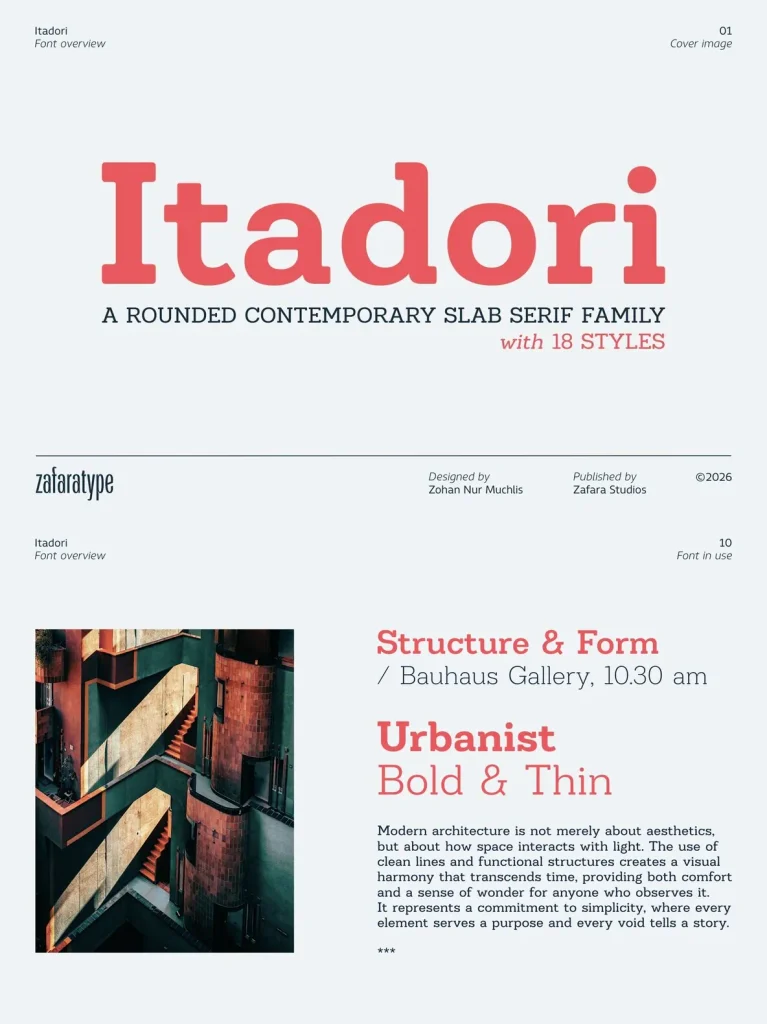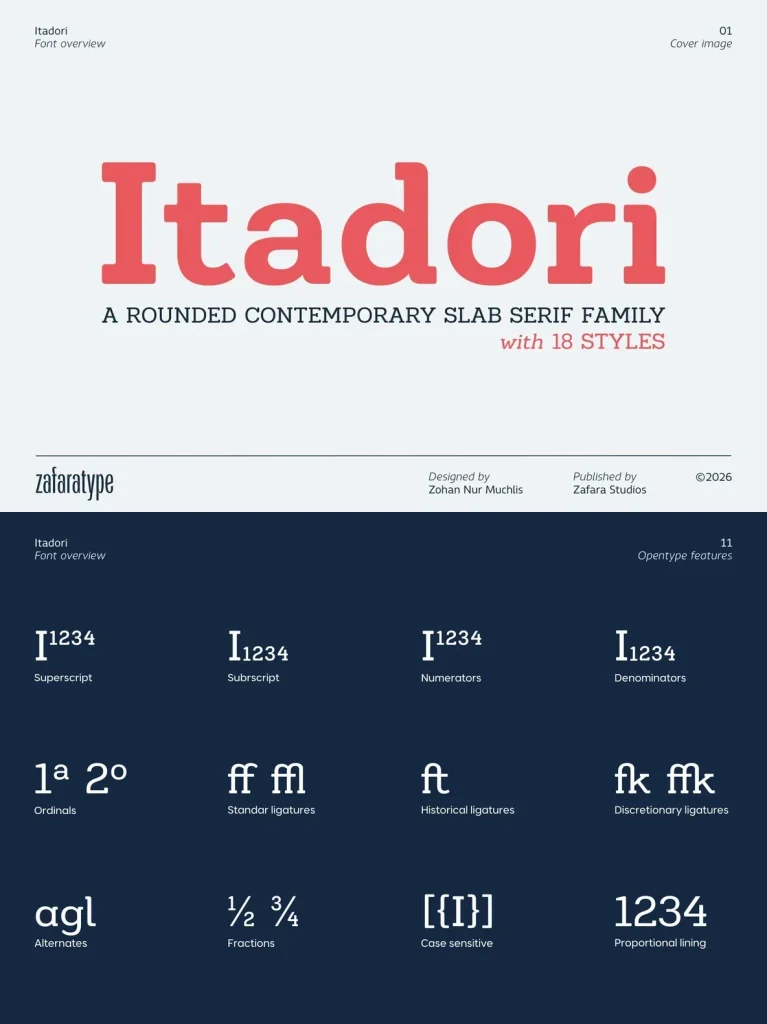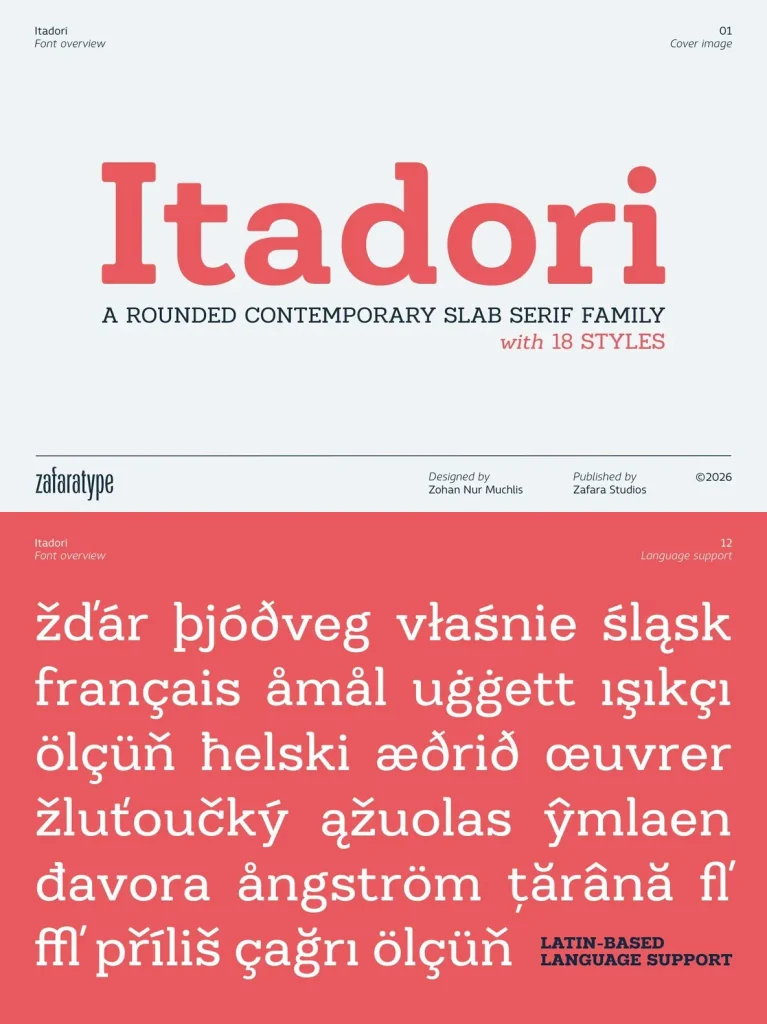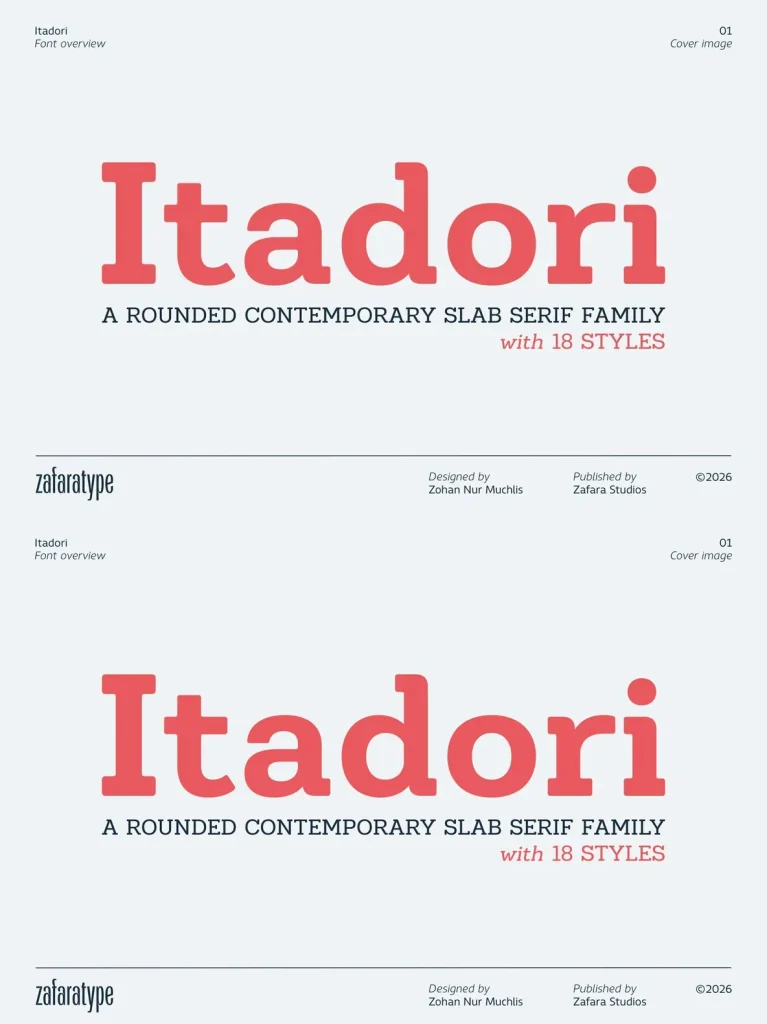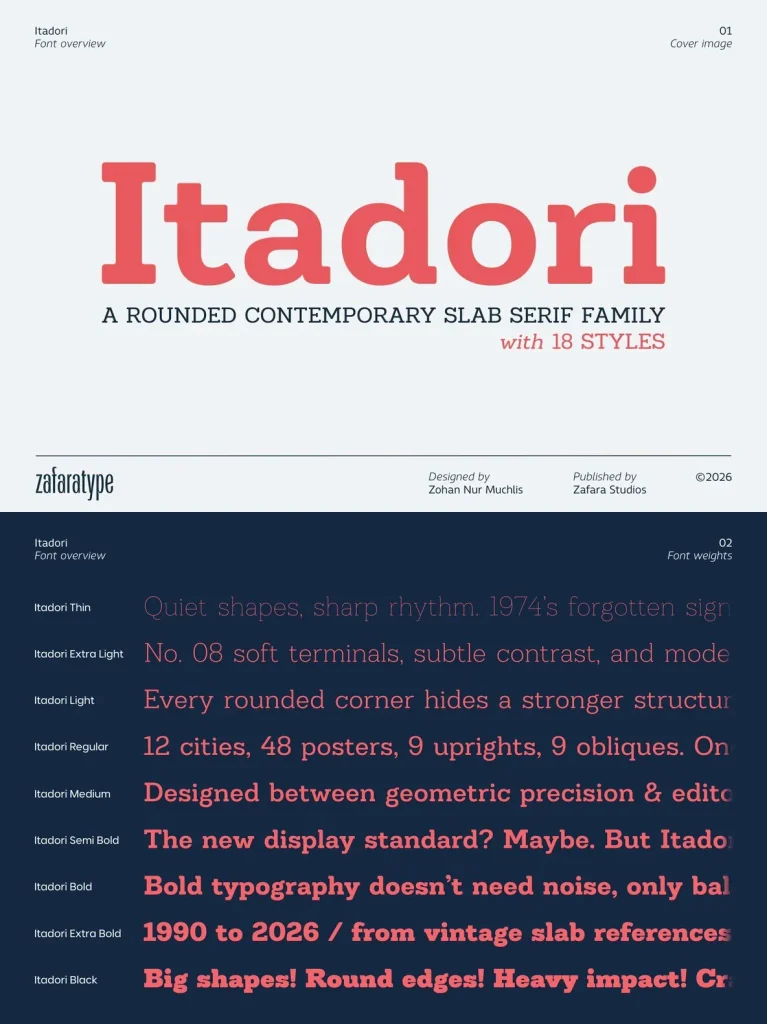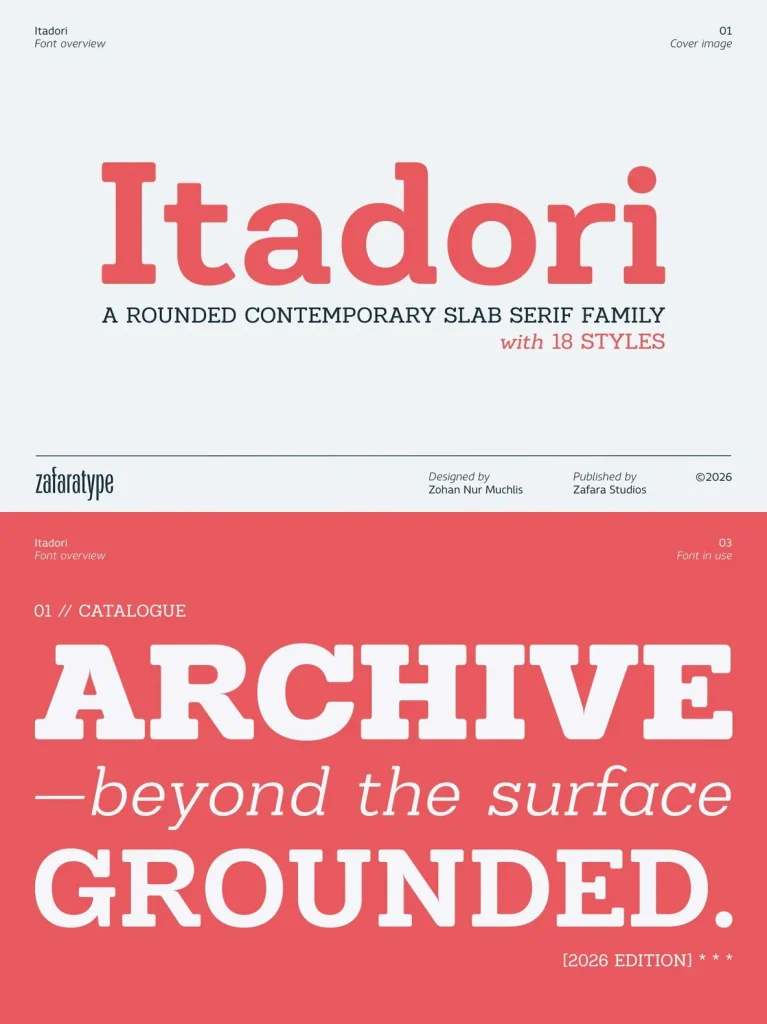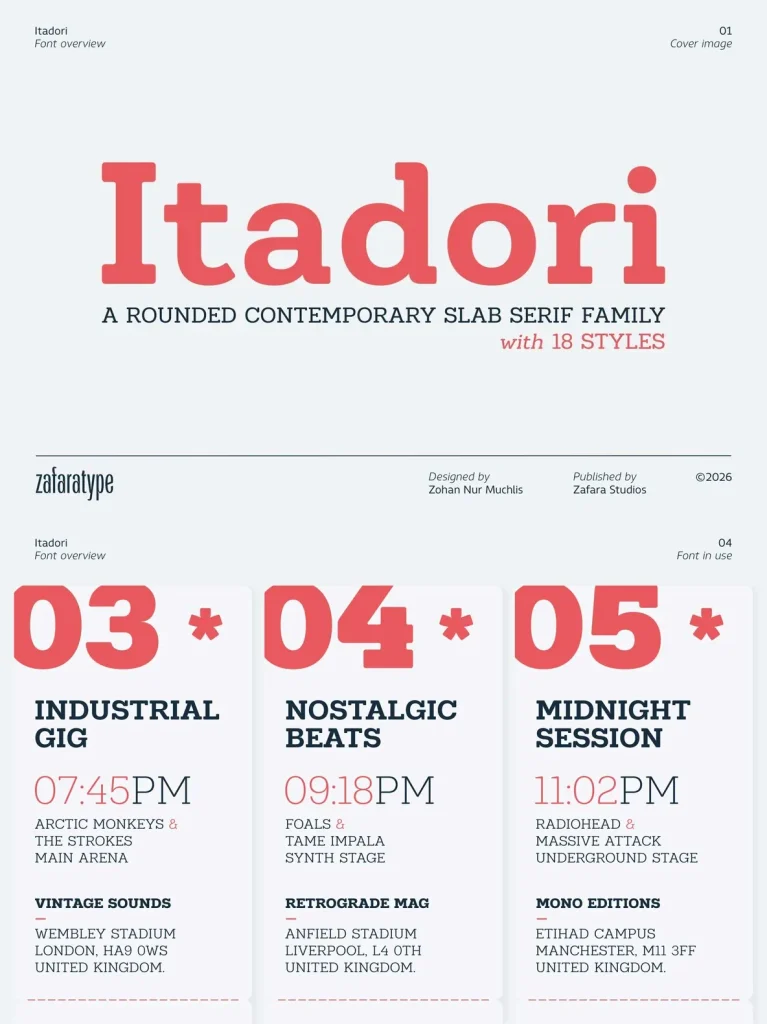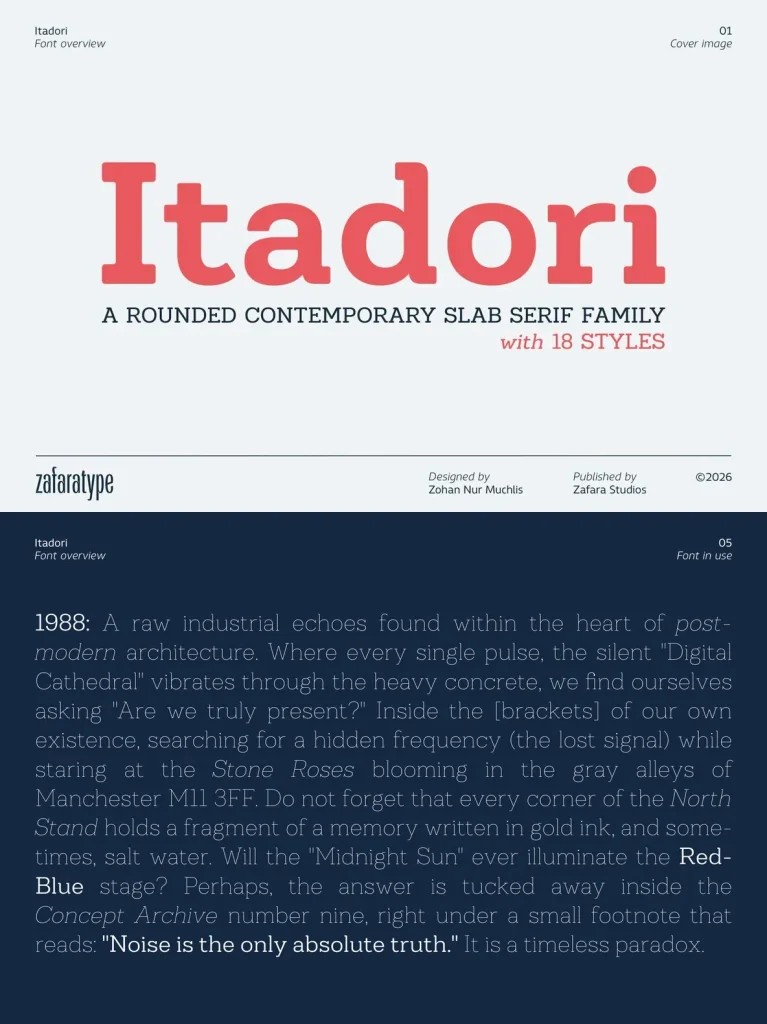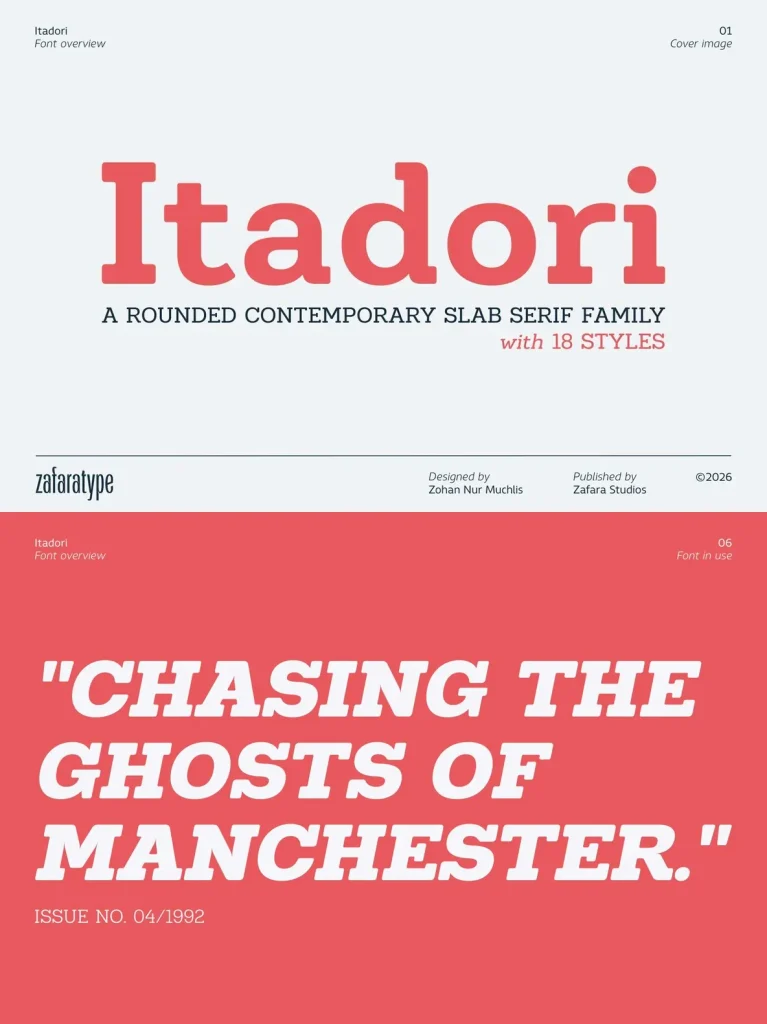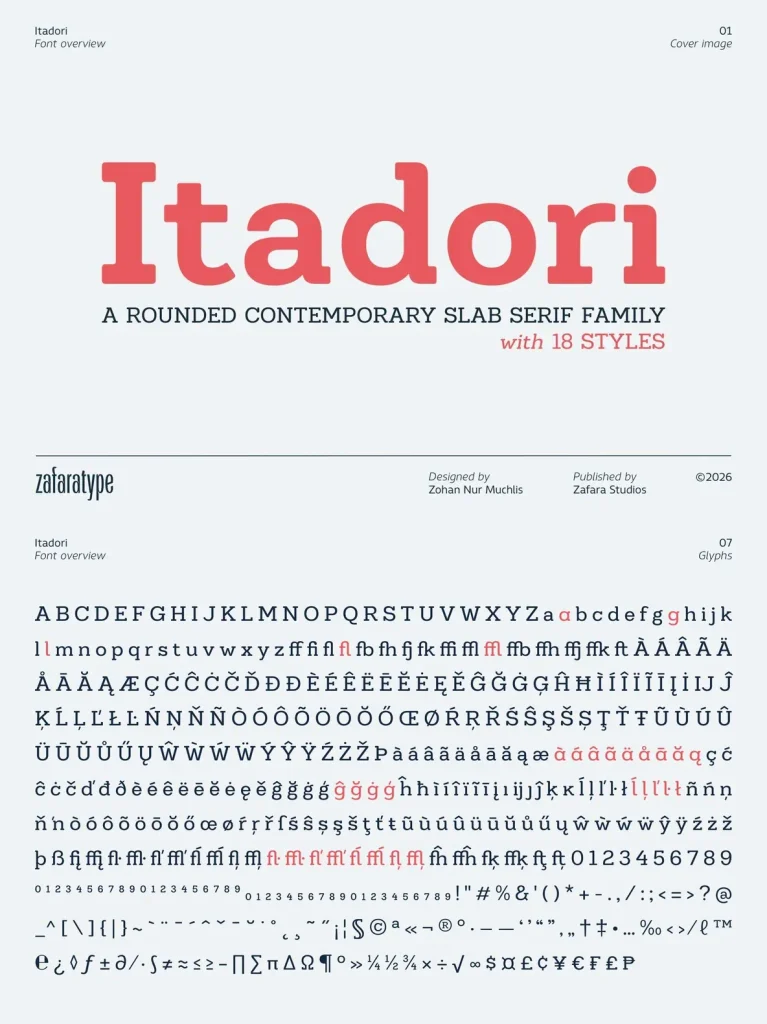
Itadori — Rounded Slab Confidence
Itadori is a rounded contemporary slab serif family that brings bold structure and soft personality into a clean modern form. Its sturdy slab serifs, smooth curves, and balanced proportions give the typeface a distinctive voice: strong, friendly, and highly adaptable.
The rounded construction gives Itadori a warm, approachable character while preserving the confident presence expected from a slab serif. This balance makes it well suited to branding, packaging, editorial layouts, advertising, posters, social media graphics, and modern visual identities. Across display and editorial use, it remains expressive, functional, and readable.
The family includes 18 styles, ranging from Thin to Black with matching italics, giving designers a complete typographic system for subtle hierarchy and bold visual impact. Each style maintains consistency, readability, and rhythm across weights and applications. With 513 glyphs and extensive Latin Extended language support, Itadori supports a wide range of Western, Central, and Eastern European languages for multilingual typography, international branding projects, and global communication needs.